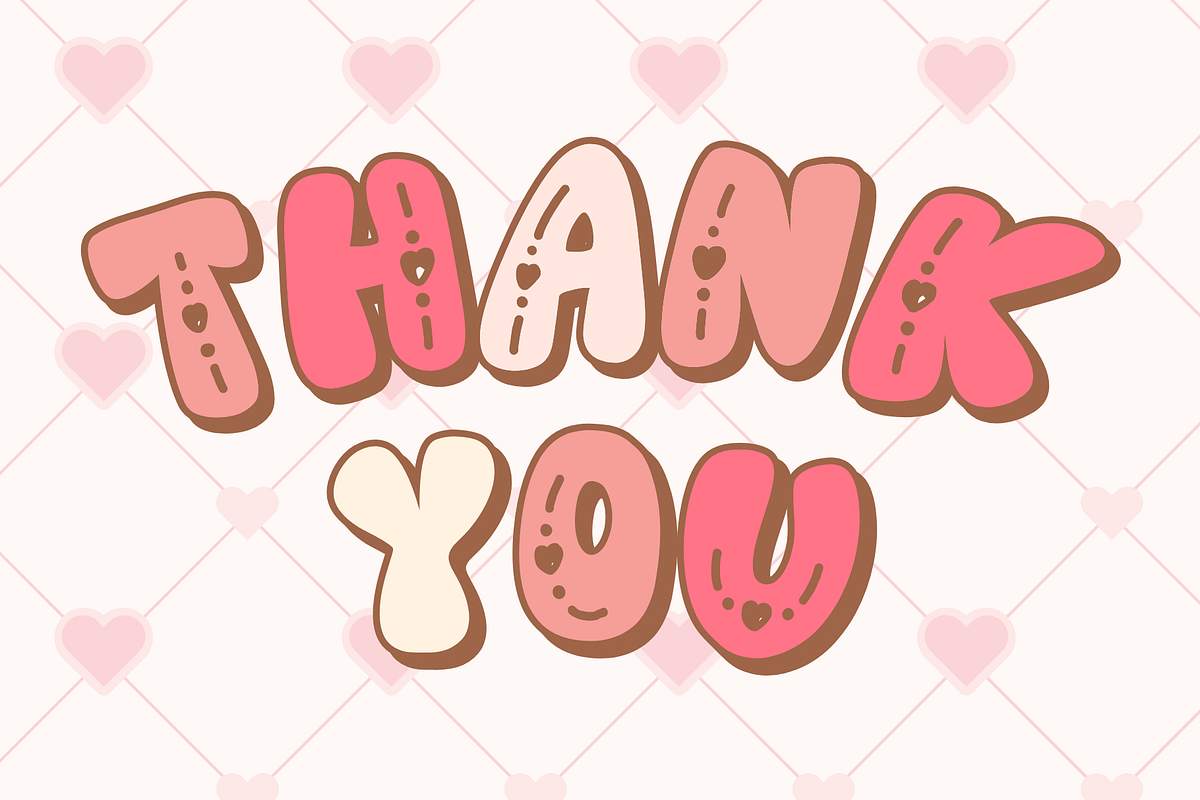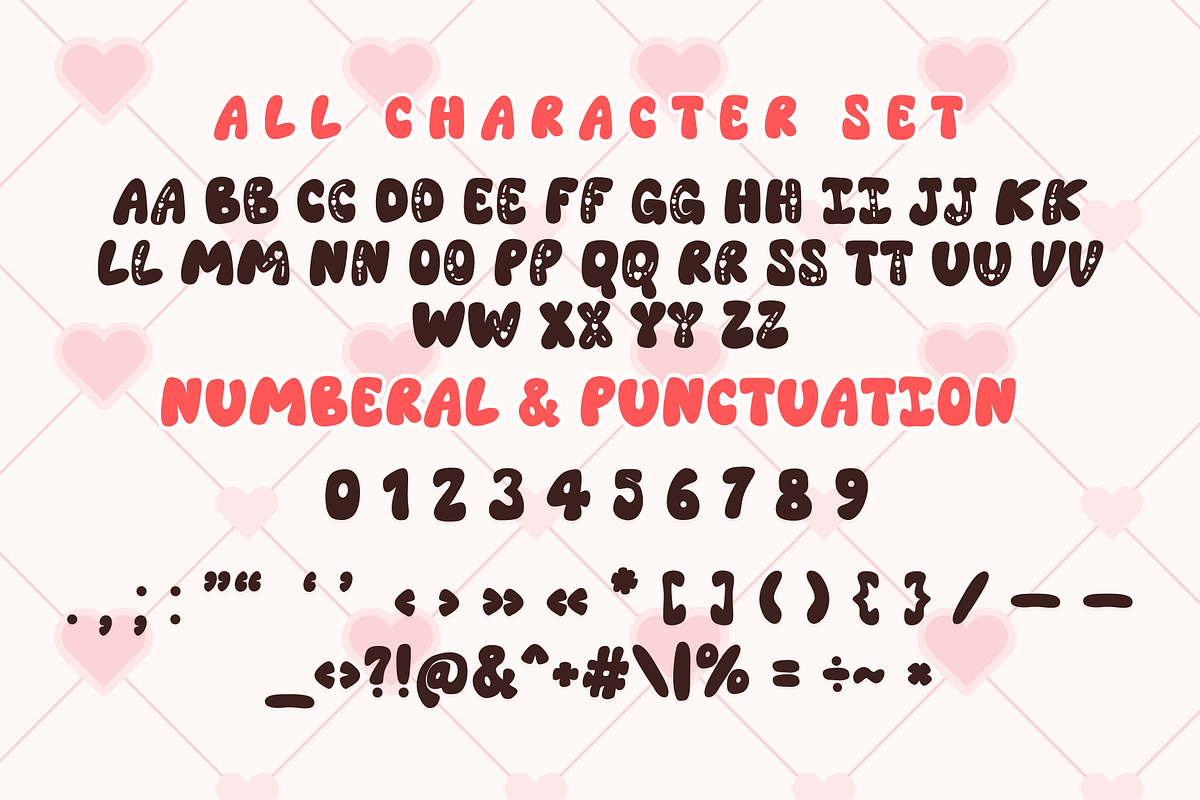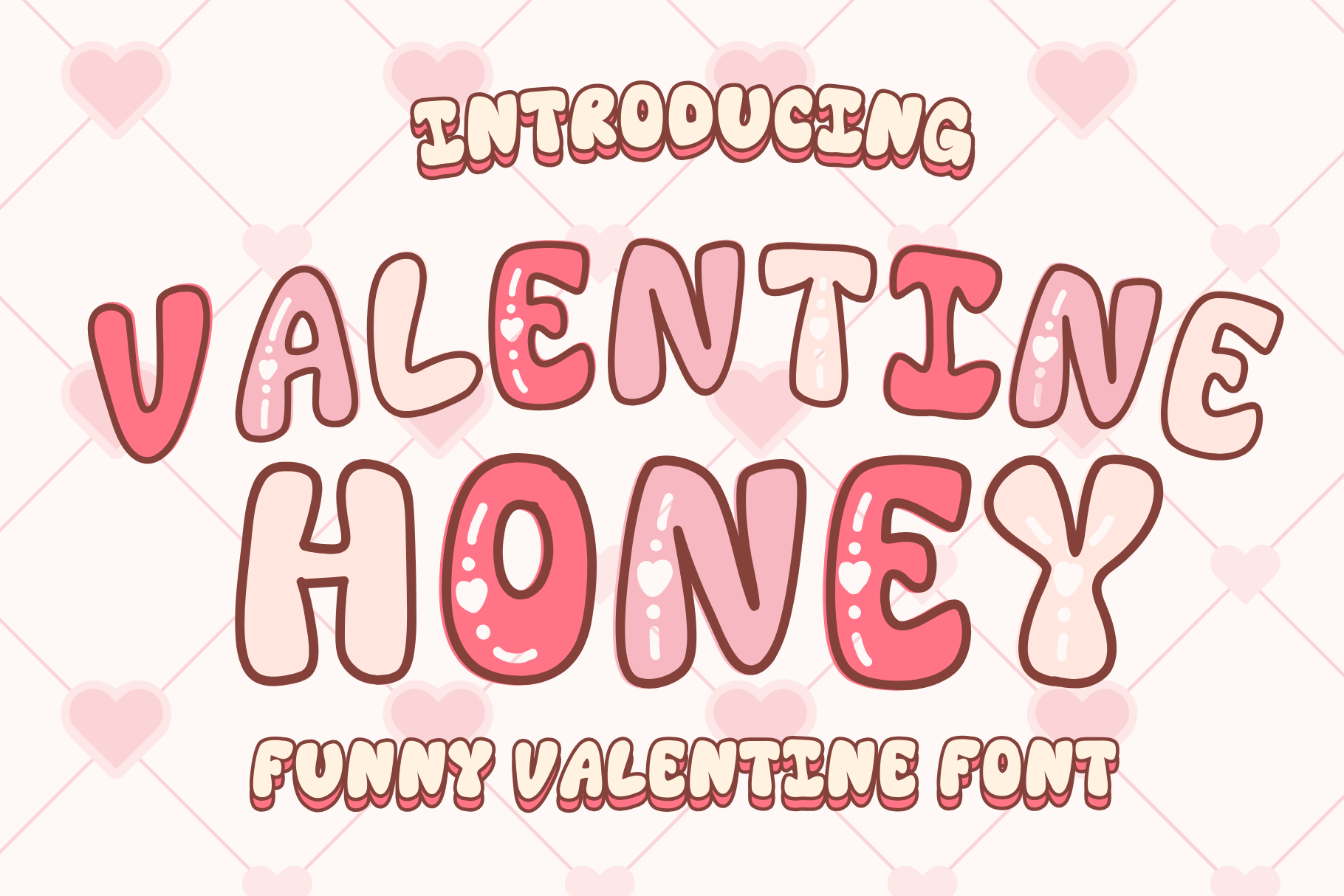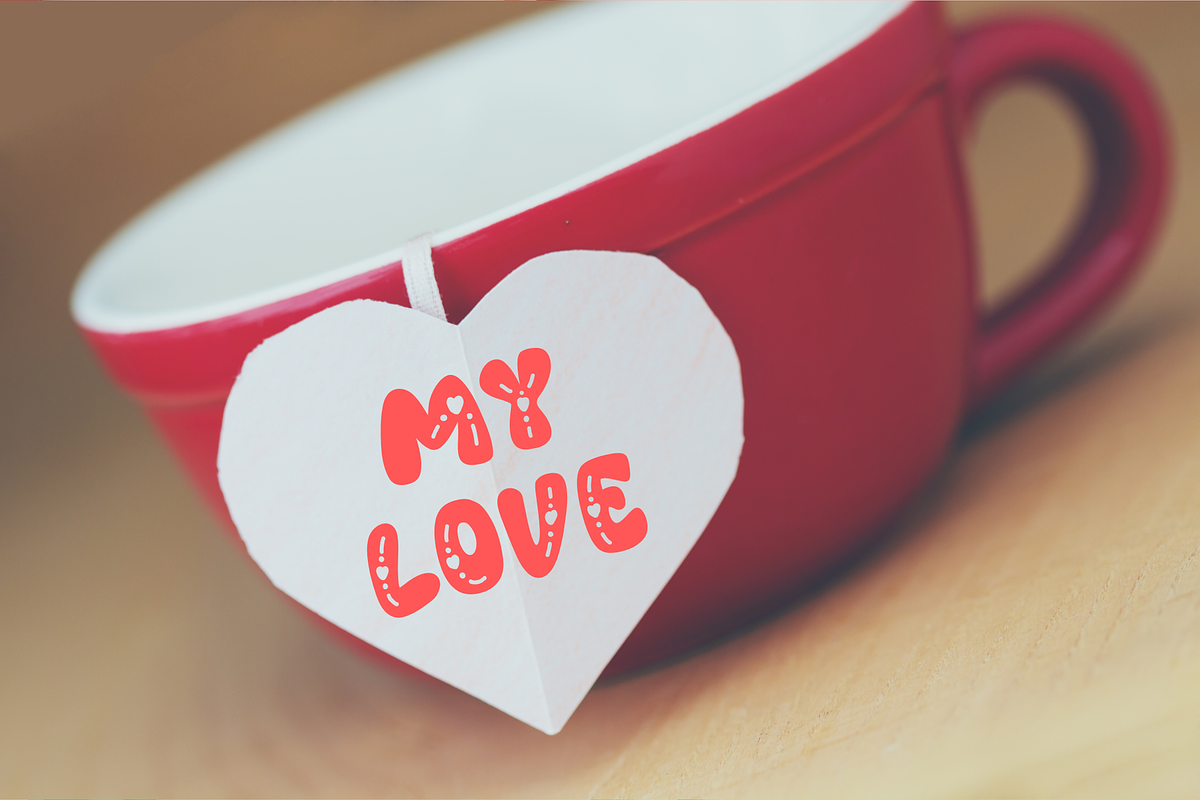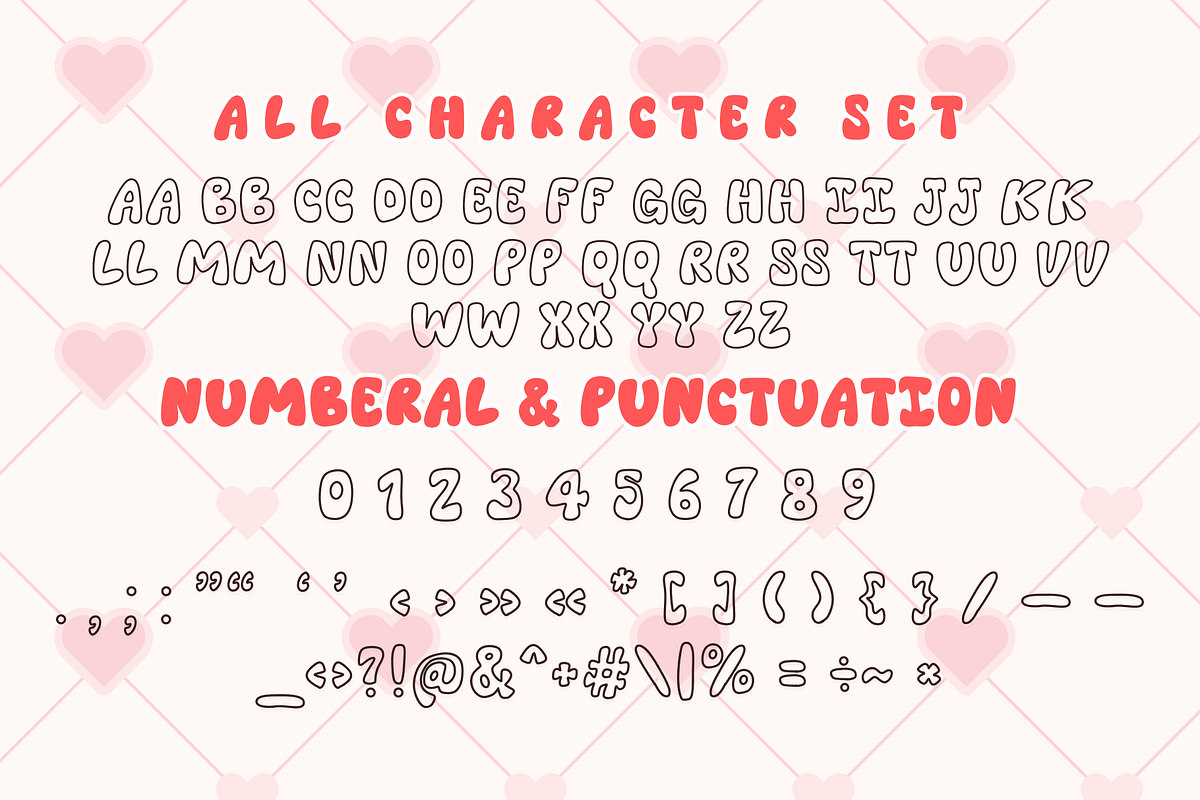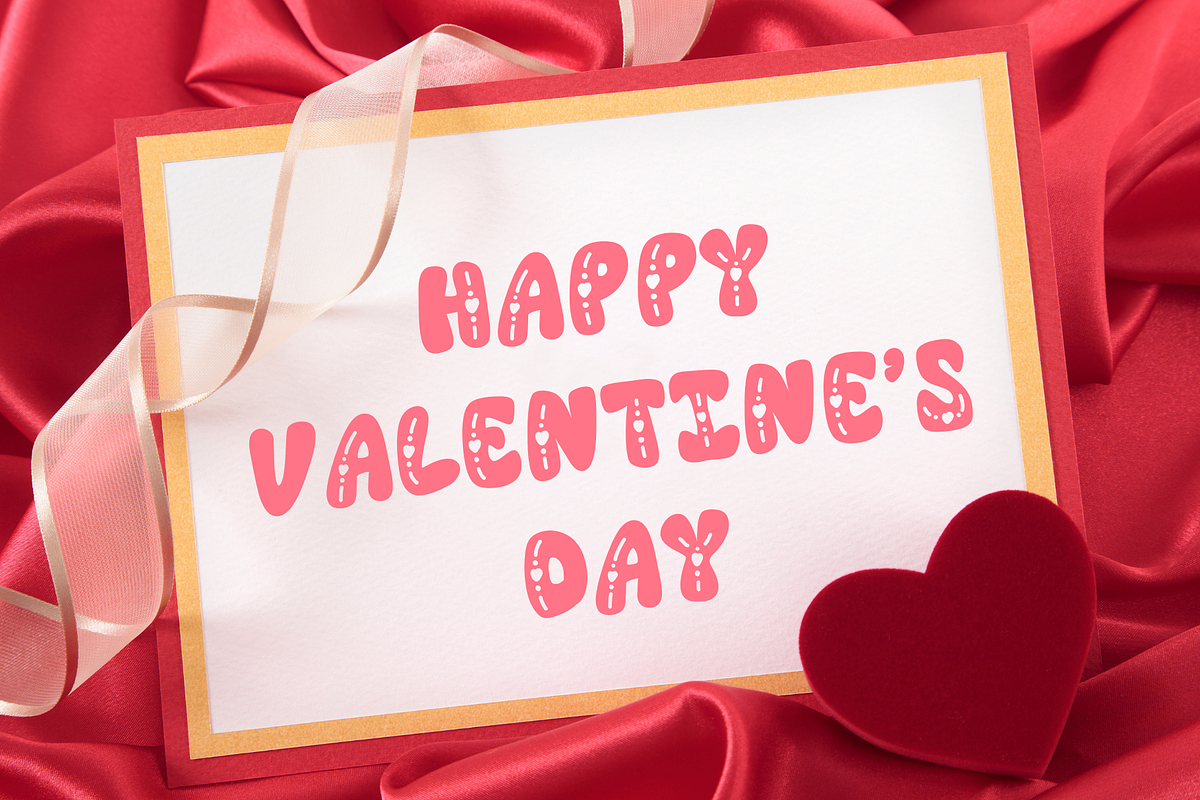
Valentine Honey is a duo font
Valentine Honey is a Valentine’s Day display font. It embodies playfulness and authenticity and is the perfect choice for all your favorite projects, or even for blog posts, logos, branding, ads, invitations, greeting cards, planners, photo albums, decorations, and much more. Add it to any of your designs, and enjoy the results!